Futuristic Fonts for Instagram, Packaging Design free with download links.š£
These are beautiful fonts minimalist futuristic font with a clean and classic look. Think clean headlines for tech logos, website interfaces, or packaging for innovative new products. With these fonts, the future is here, and itās surprisingly elegant.
Harelyn Font
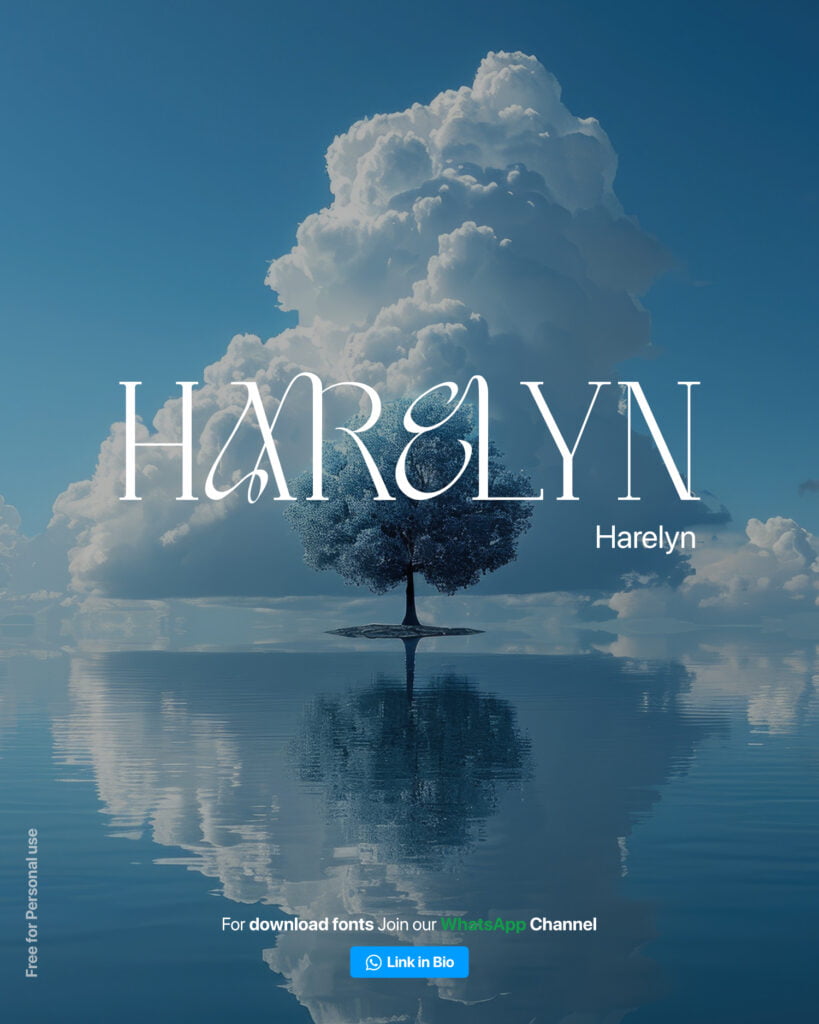
Barich Font
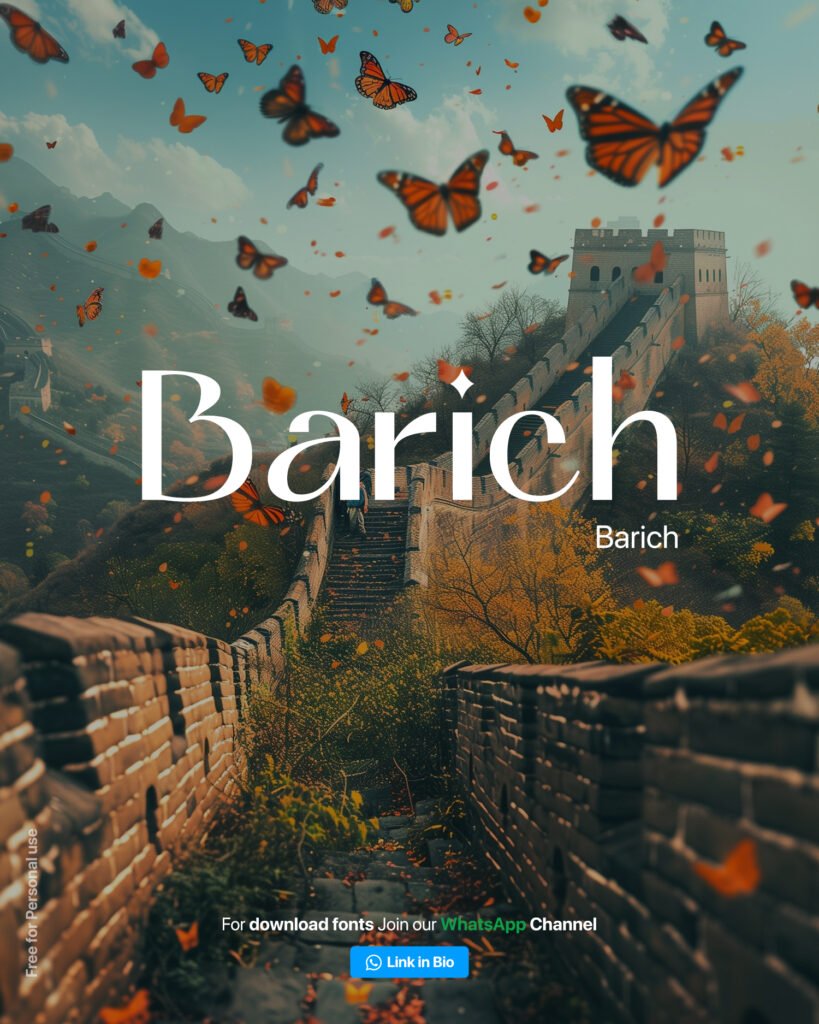
Magrefin Font
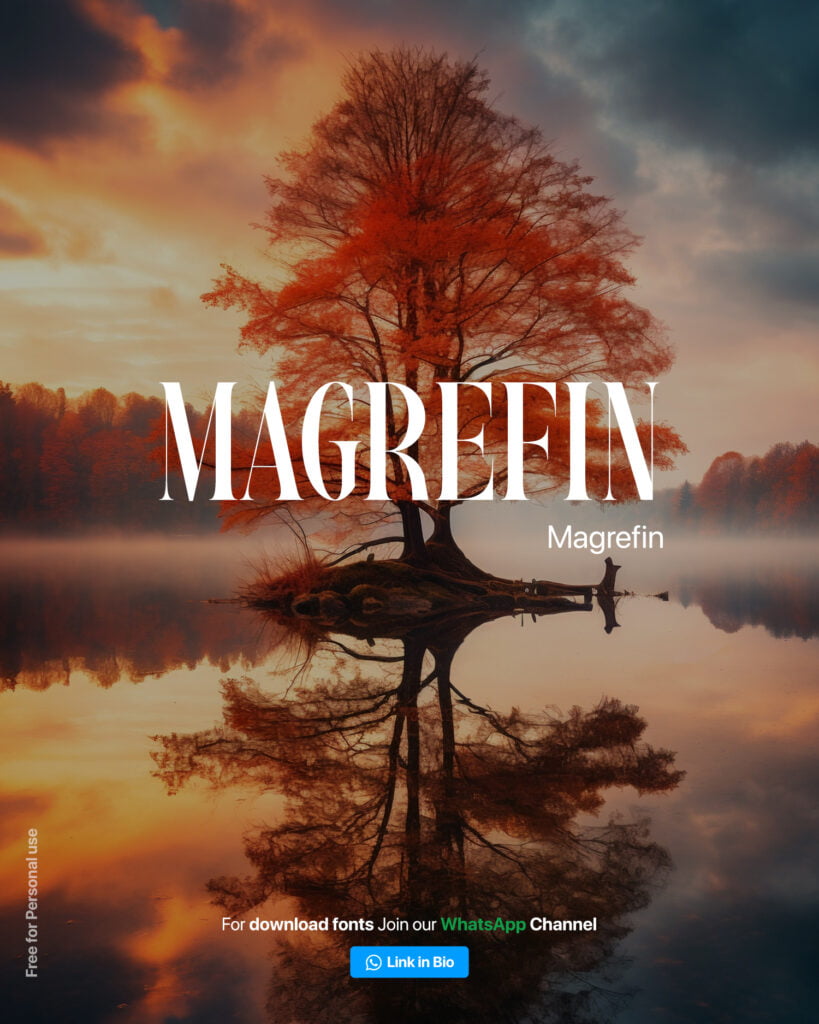
Margaret Font
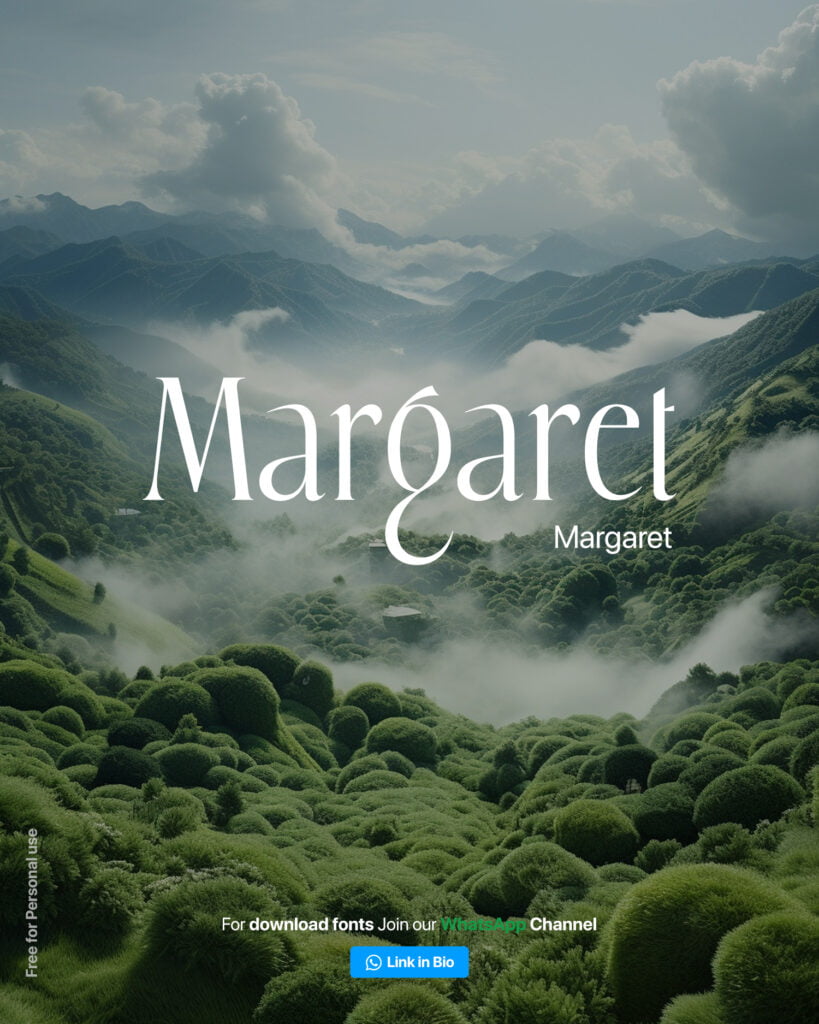
Saviera Font
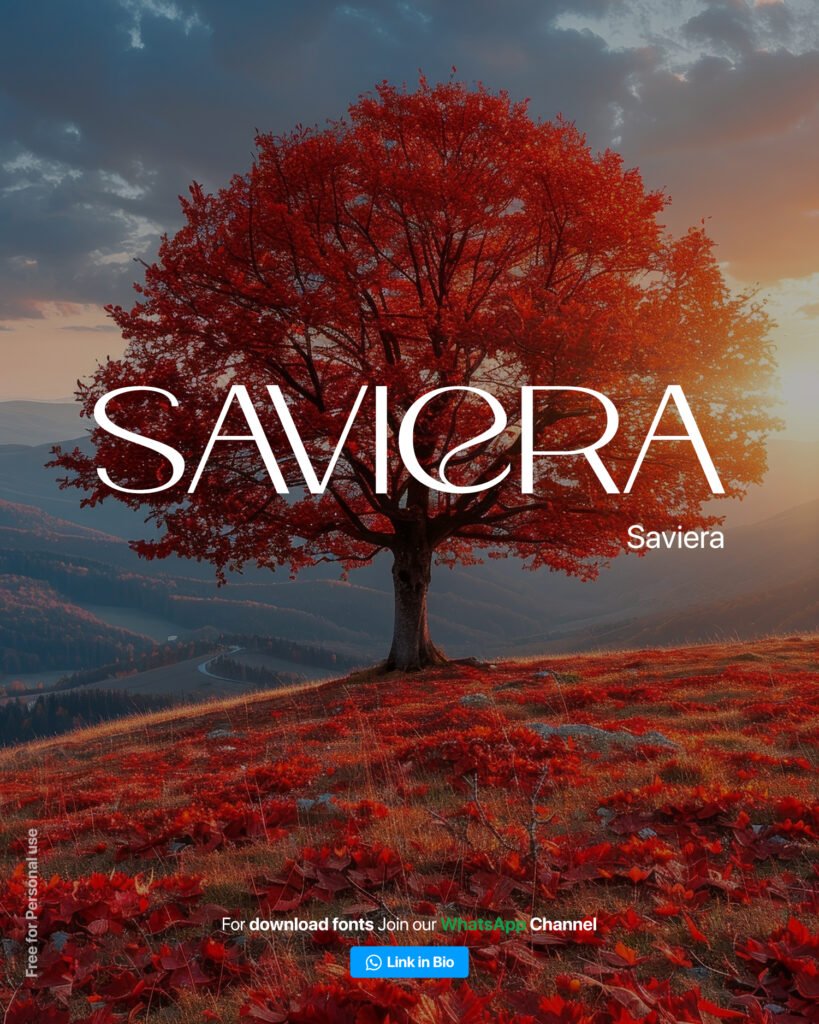
Zaslia Font